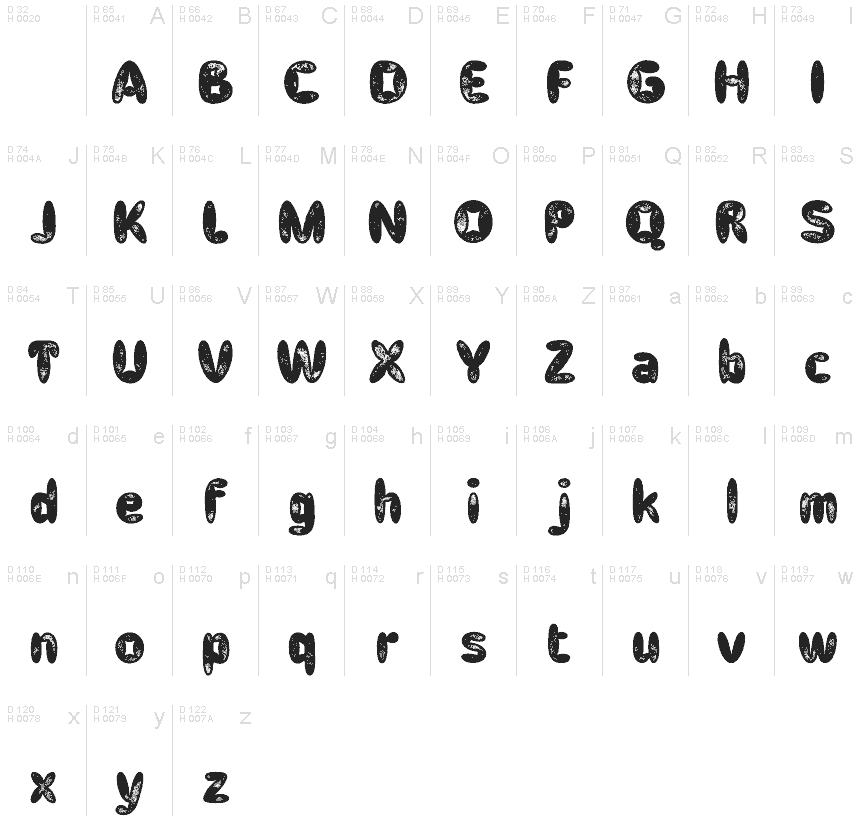
Cocana Vintage Demo Stamp
Cocana Vintage Stamp font by Craft Supply Co is a display typeface with eroded edges and other intriguing imperfections. The retro-inspired handwritten letterforms give the font a nostalgic appearance reminiscent of vintage magazines, shops, and TV shows. This distressed texture combined with loose penmanship makes the free font look more casual than its serif counterparts.
Advertisers can add it to billboard designs for toy stores or healthy bakery shops and businesses. Ideal for personal projects or clients, it will create engaging posters, covers of books or brochures, product packaging boxes, labels on jars and bottles in addition to T-shirt graphics. Web design is yet another possibility among many others.